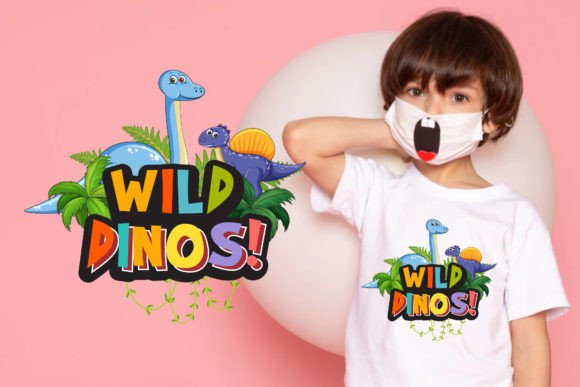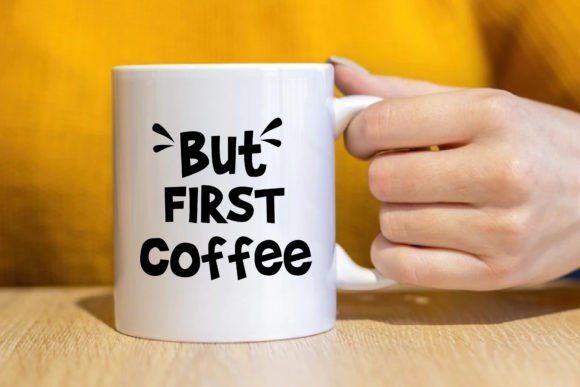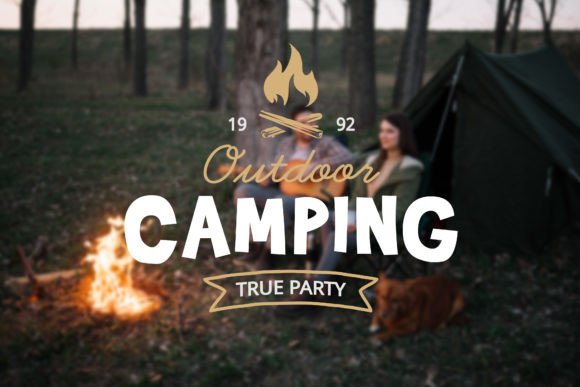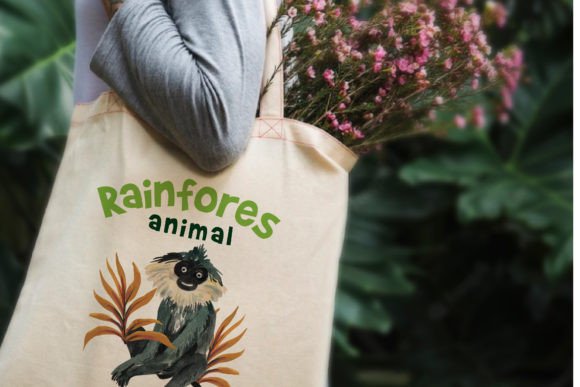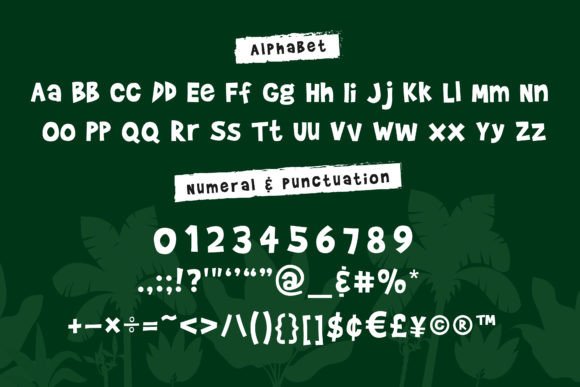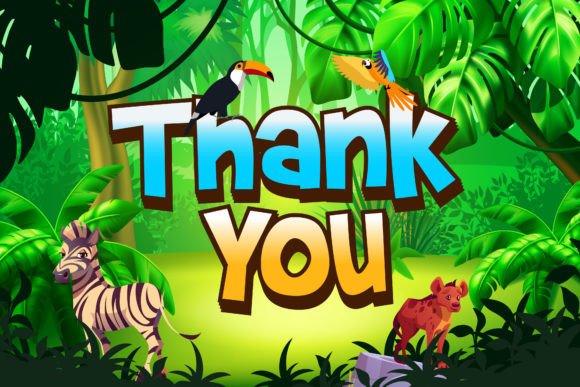
Introduction to Jungle King Font
Imagine you’re brainstorming ideas for a new video game, and you need a font that screams excitement and adventure. You scroll through design resources, searching for the perfect match, until you stumble upon the Jungle King Font. Its bold, cartoon-like style instantly captures your attention, and you can’t help but envision it on the game’s title screen or in-game menu.
As designers, we’re always on the lookout for high-quality fonts that can elevate our creative projects. The Jungle King Font is a game-changer, offering a free download option that’s perfect for designers on a budget. With its transparent background and customizable design, this font is a design resource that’s hard to resist.
Whether you’re working on a comic book style project, creating eye-catching social media posts, or designing movie titles, the Jungle King Font is sure to bring a touch of youthfulness and courage to your work. In this article, we’ll dive deeper into the world of this amazing font and explore its many uses and benefits.
Key Features of Jungle King Font
- High-quality, bold, and playful font perfect for creative projects.
- Unique characteristics include intricate jungle-inspired details and a regal, majestic feel, making it ideal for logos, branding, and other creative projects.
- Designed to be highly legible and versatile, making it suitable for a wide range of design applications, from print to digital media.
Honest Review: Jungle King Font
I recently stumbled upon the Jungle King Font, and I must say it’s a gem in the design world. This free download has quickly become one of my go-to resources for creative projects. The high quality of the font makes it perfect for anything from logos to social media graphics.
- ✨ The font’s unique design is perfect for adding a touch of adventure to any project.
- ✨ The transparent background makes it easy to customize and blend with any design.
- ⚠️ The font may not be suitable for projects requiring a more formal or traditional look.
- ⚠️ The number of available weights and styles could be limited compared to other fonts.
Overall, I’m thoroughly impressed with the Jungle King Font. Its unique design and high quality make it a valuable addition to any designer’s toolkit. While it may have some limitations, it’s an excellent resource for anyone looking to add a touch of adventure to their creative projects.
Tips for Getting the Most Out of Jungle King Font
Experiment with different font sizes, colors, and styles to create a unique and eye-catching design. Use the font in combination with other design elements, such as images and graphics, to add depth and visual interest to your design project.
The Jungle King Font is ideal for a variety of creative projects, including logos, branding materials, and marketing materials. It’s also suitable for use in presentations, documents, and other business materials where a high-quality and professional font is required.